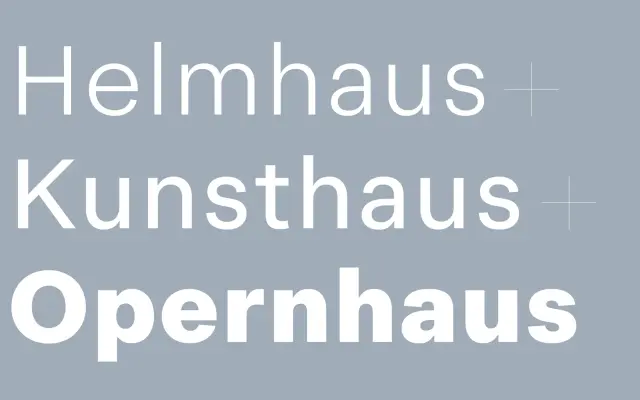
F37 Blanka
F37's take on a clean Swiss sans, drawn across forty-eight styles in three widths with one of the broadest script coverages in the catalogue.
A neo-grotesque sans from F37 Foundry presented as the foundry's take on a clean, classic Swiss sans, economical and very legible at small sizes. Forty-eight Latin styles run across eight weights and three widths, from standard through expanded to extended, with matching italics throughout and a companion mono cut. Script support stretches across Arabic, Cyrillic, Devanagari, Greek, Hebrew, Pan African and Thai, giving Blanka one of the broadest reach lists in the F37 catalogue and a natural fit for international branding, product, editorial and body-copy systems.
F37 describe Blanka as their take on a clean, classic Swiss sans, framed against the International Typographic Style, the Kunstgewerbeschule Zürich and the Basel School of Design.